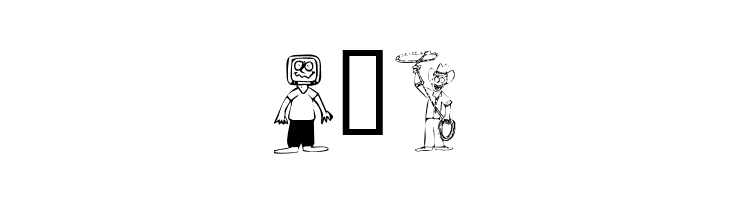
( Dysa is a Sephraxian Support font. This font can be both used for ornate logo design and whiteboard-inspired art, or also for giving your next hobby project something that makes your friends go mad and zany. )
A playful, hand-drawn font with thin, irregular strokes and a whimsical style.
( Font based on Dysa )